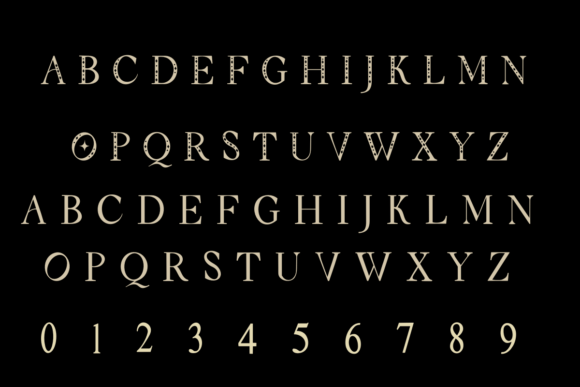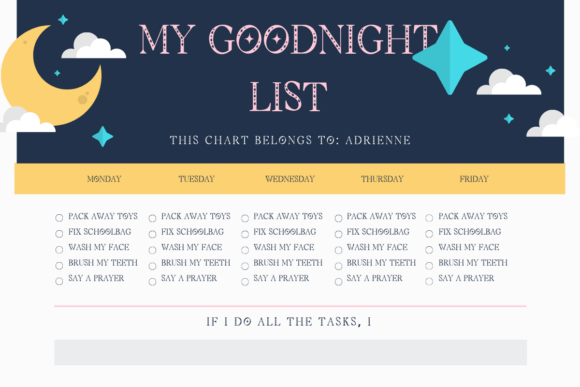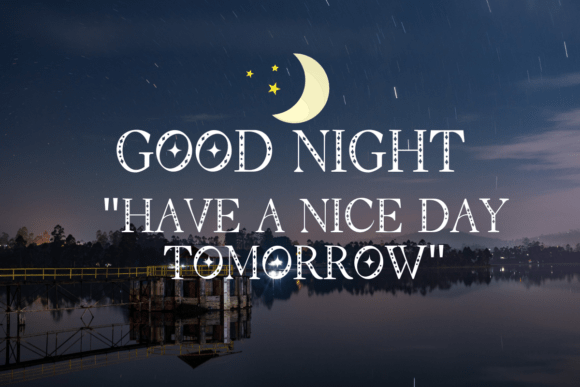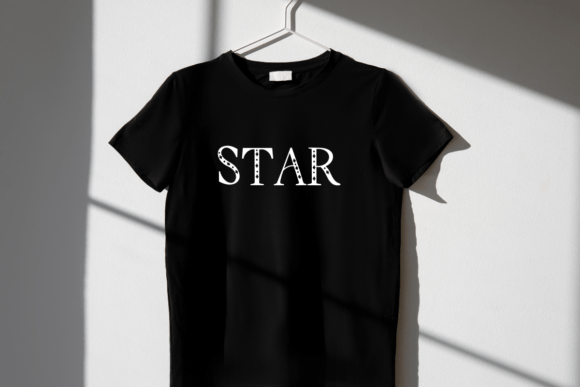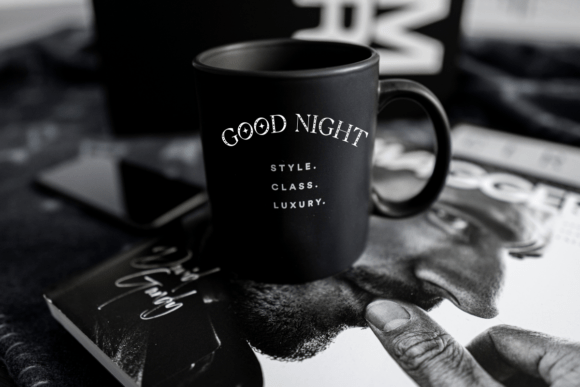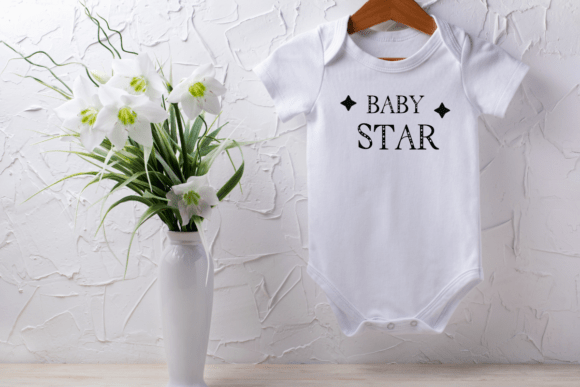
Introducing Full Moon Font: A Decorative Delight for Designers and Crafters
Are you on the hunt for a unique and captivating font to elevate your creative projects? Look no further than Full Moon Font, a beautiful decorative font that’s perfect for a wide range of applications. In this article, we’ll explore the features and uses of Full Moon Font, and why it’s a must-have for designers and crafters alike.
What is Full Moon Font?
Full Moon Font is a stunning decorative font that’s designed to add a touch of elegance and whimsy to your projects. With its intricate and curved lines, this font is sure to capture the attention of your audience and leave a lasting impression. Whether you’re creating a personal or professional project, Full Moon Font is the perfect choice for those looking to add a bit of flair to their designs.
Uses for Full Moon Font
One of the best things about Full Moon Font is its versatility. This font can be used for a wide range of projects, including:
- Note-taking and journaling: Add a personal touch to your notes and diary entries with Full Moon Font. Whether you’re writing down your thoughts, goals, or inspiration, this font is sure to make your journaling experience more enjoyable and visually appealing.
- Greeting cards and invitations: Create beautiful and unique greeting cards and invitations for special occasions such as birthdays, weddings, and holidays. Full Moon Font is sure to make your cards and invites stand out from the crowd.
- Banners and signs: Use Full Moon Font to create eye-catching banners and signs for parties, events, or promotions. This font is sure to grab the attention of your audience and leave a lasting impression.
- Social media posts: Add a touch of elegance to your social media posts with Full Moon Font. Whether you’re creating graphics for Instagram, Facebook, or Twitter, this font is sure to make your posts stand out.
- Mugs, shirts, and stationery: Use Full Moon Font to create unique and personalized products such as mugs, shirts, and stationery. This font is sure to add a touch of personality to your designs and make them more special.
Why Choose Full Moon Font?
So why choose Full Moon Font over other decorative fonts? Here are just a few reasons why this font stands out:
- Unique and eye-catching: Full Moon Font is a one-of-a-kind font that’s sure to capture the attention of your audience. Its intricate and curved lines make it a standout from other decorative fonts.
- Versatile: As mentioned earlier, Full Moon Font can be used for a wide range of projects, from personal to professional. Its versatility makes it a great addition to any designer’s or crafter’s toolkit.
- Elegant and whimsical: Full Moon Font strikes the perfect balance between elegance and whimsy. Its delicate lines and curves make it perfect for creating beautiful and eye-catching designs.
Tips for Using Full Moon Font
Here are a few tips for getting the most out of Full Moon Font:
- Use it sparingly: While Full Moon Font is beautiful, it’s best to use it sparingly to avoid overwhelming your design. Use it for headings, titles, or special text to add emphasis and visual interest.
- Pair it with other fonts: Experiment with pairing Full Moon Font with other fonts to create a unique and visually appealing design. A simple sans-serif font can provide a nice contrast to the elegance of Full Moon Font.
- Experiment with colors and textures: Don’t be afraid to experiment with different colors and textures to add depth and interest to your design. Full Moon Font looks great with bold colors and subtle textures.
In conclusion, Full Moon Font is a beautiful and versatile decorative font that’s perfect for designers and crafters alike. Its unique and eye-catching design makes it perfect for a wide range of projects, from personal to professional. Whether you’re creating greeting cards, social media posts, or banners, Full Moon Font is sure to add a touch of elegance and whimsy to your designs. So why not give it a try and see the difference it can make in your creative projects?